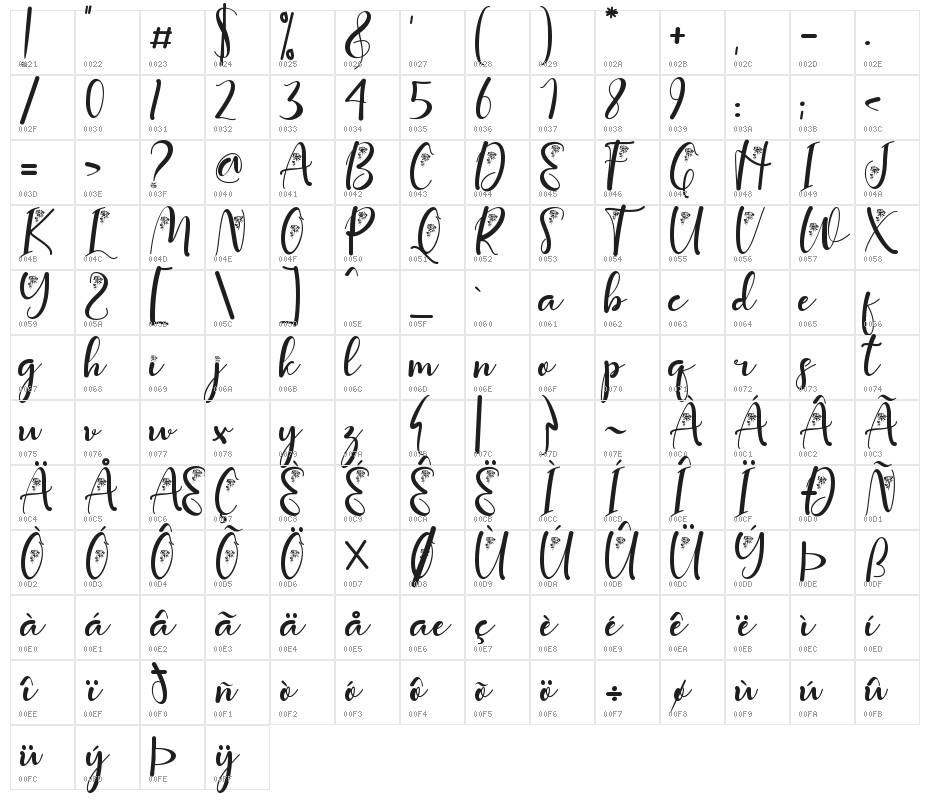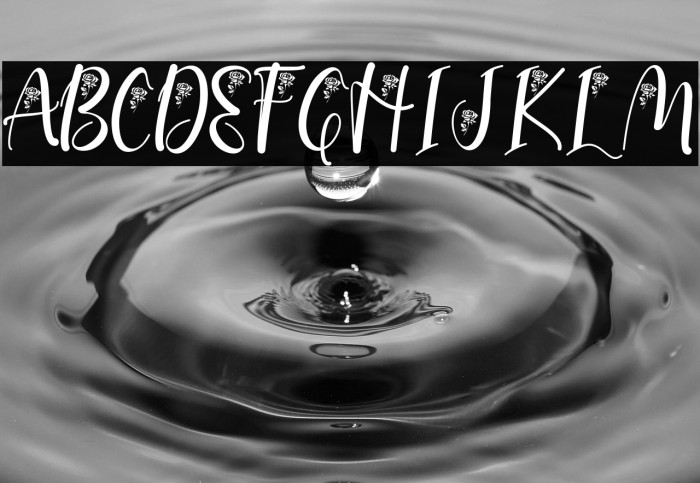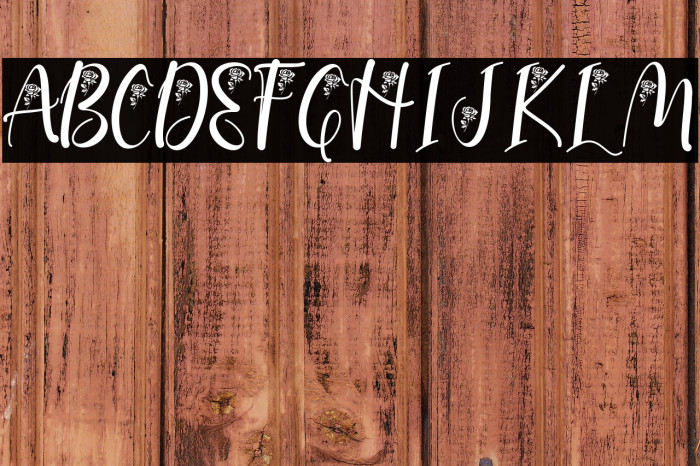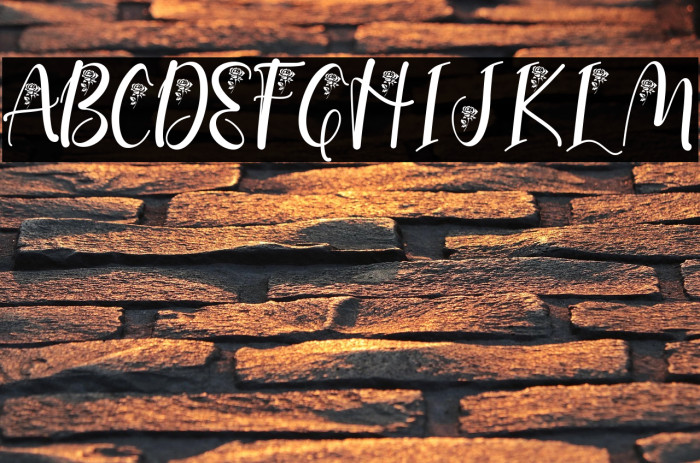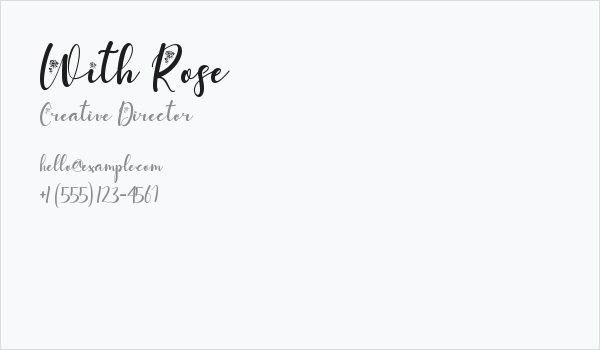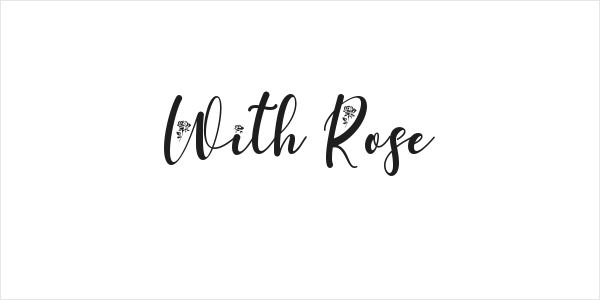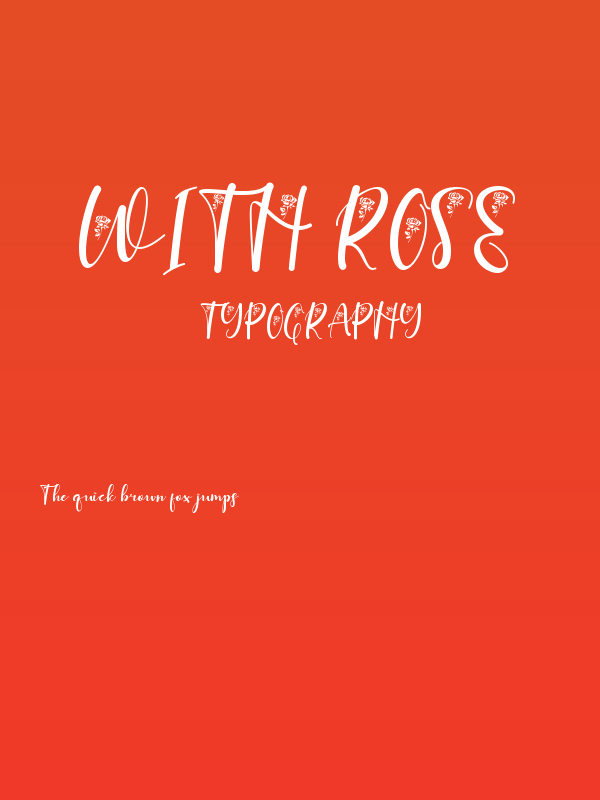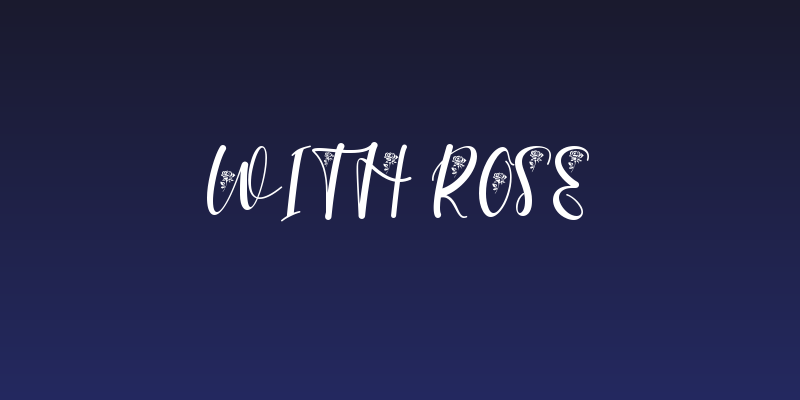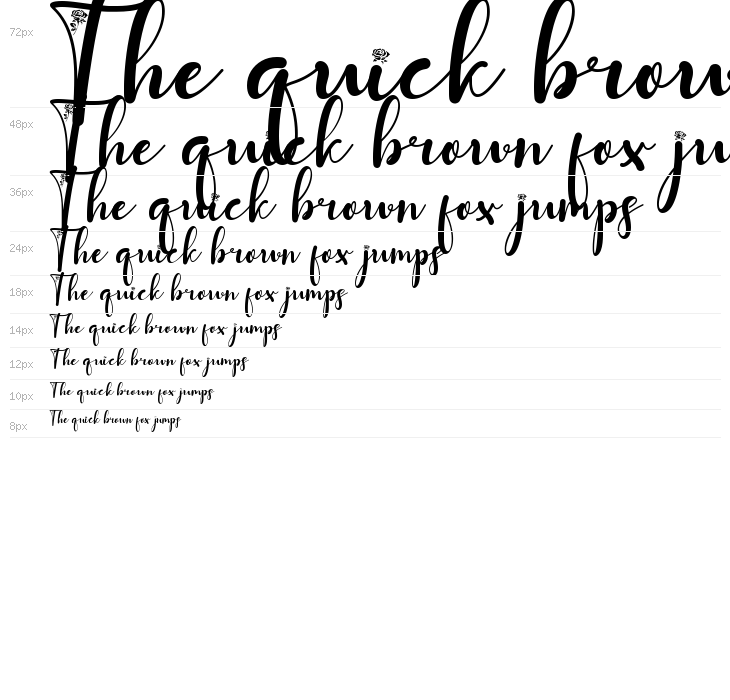
With Rose Font
With Rose Description
This decorative script font features elegant, flowing letters with a unique touch of floral embellishments. Each uppercase letter is adorned with a small rose, adding a romantic and whimsical flair. The lowercase letters maintain a smooth, cursive style that complements the ornate uppercase. The numerals and special characters follow the same elegant script, ensuring a cohesive look across all text. The font's overall design is both artistic and sophisticated, making it ideal for projects that require a touch of elegance and creativity.
| Use Case | Logos, Invitations, Decorative text |
| Proposed Projects | Ideal for wedding invitations, greeting cards, branding projects, and any design that requires a romantic and artistic touch. |